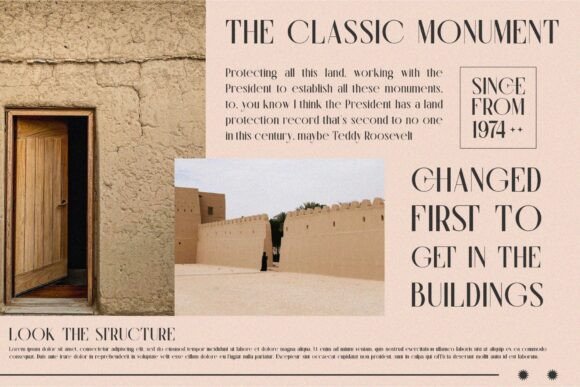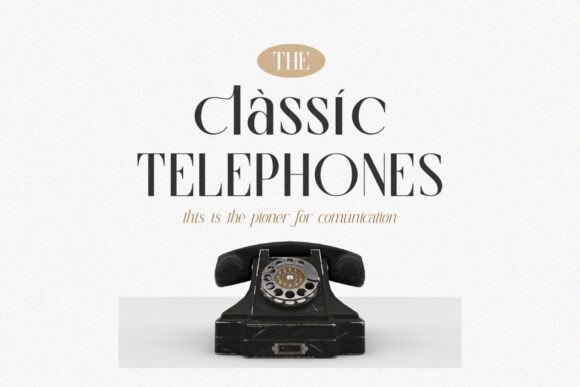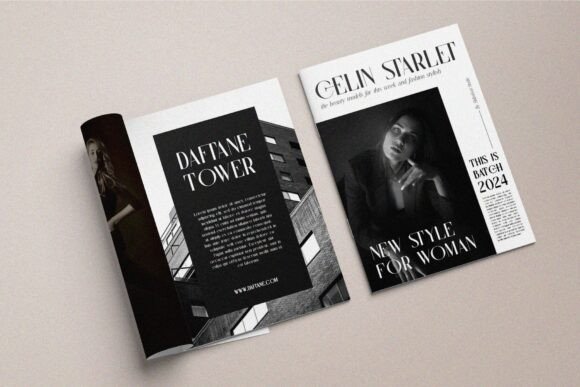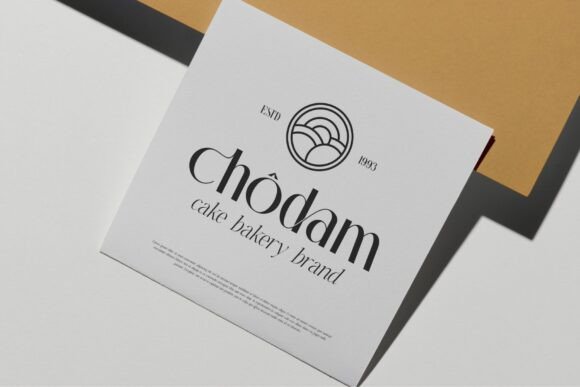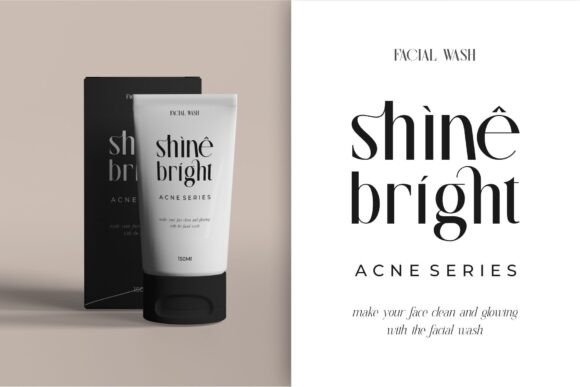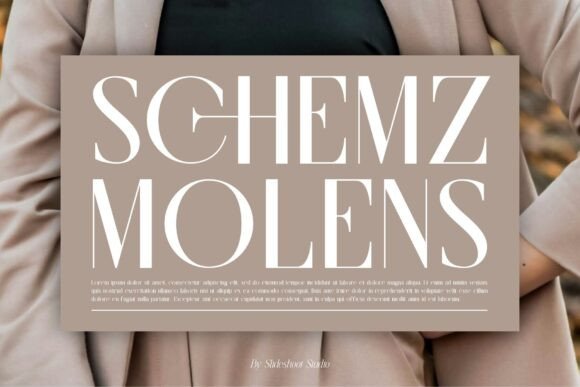
Introduction to Shein Font
Shein is a carefully crafted, balanced, refined, elegant and stylish sans serif font.
It grabs attention and beautifies any design It is perfect to be combined with invitation card designs, company logos, movie titles, movie names, business cards, book titles, brand names and various other designs.